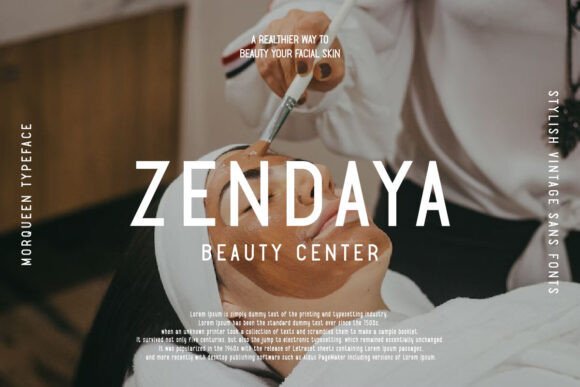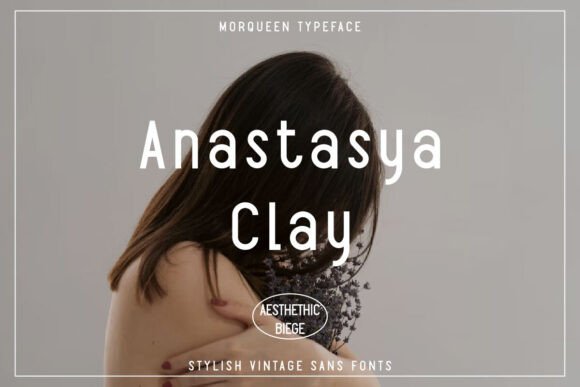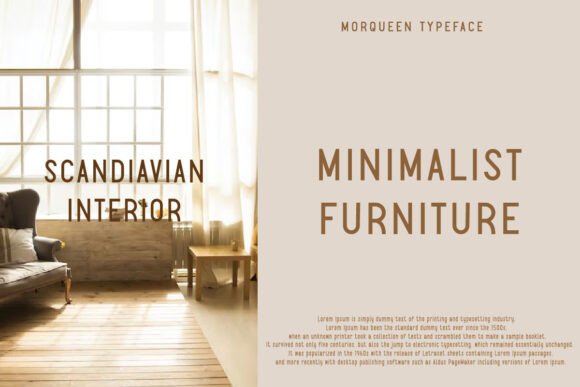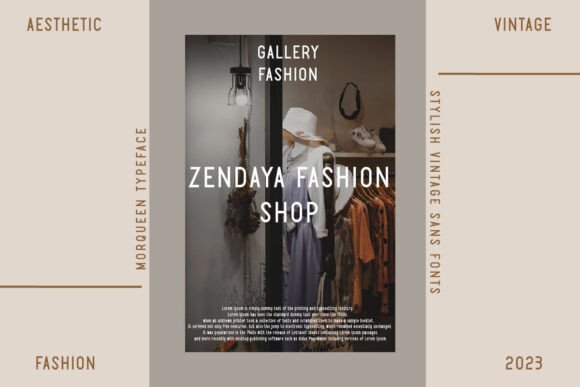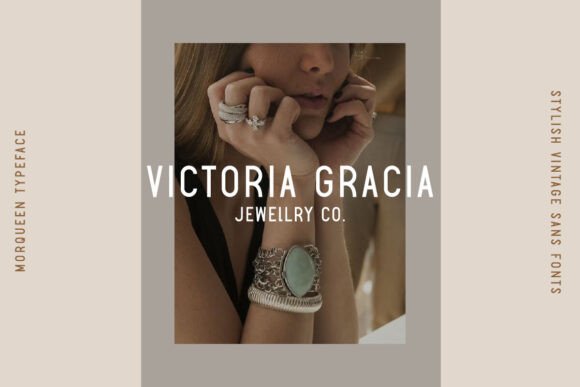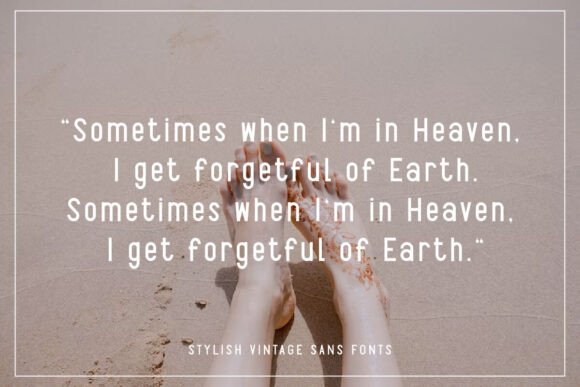
Introduction to Morqueen Font
Morqueen is a stylish vintage sans serif font.
This font is perfect for classic branding, elegant headlines, sophisticated logos, editorial designs, and anything that needs a touch of timeless charm and refined simplicity Its clean lines and vintage appeal make it highly versatile.
Key Features of Morqueen Font
Why Choose Morqueen Font?
Morqueen Font offers exceptional quality and versatility, making it a valuable addition to your design toolkit. Whether you’re creating for personal projects or commercial use, Morqueen Font delivers professional results.